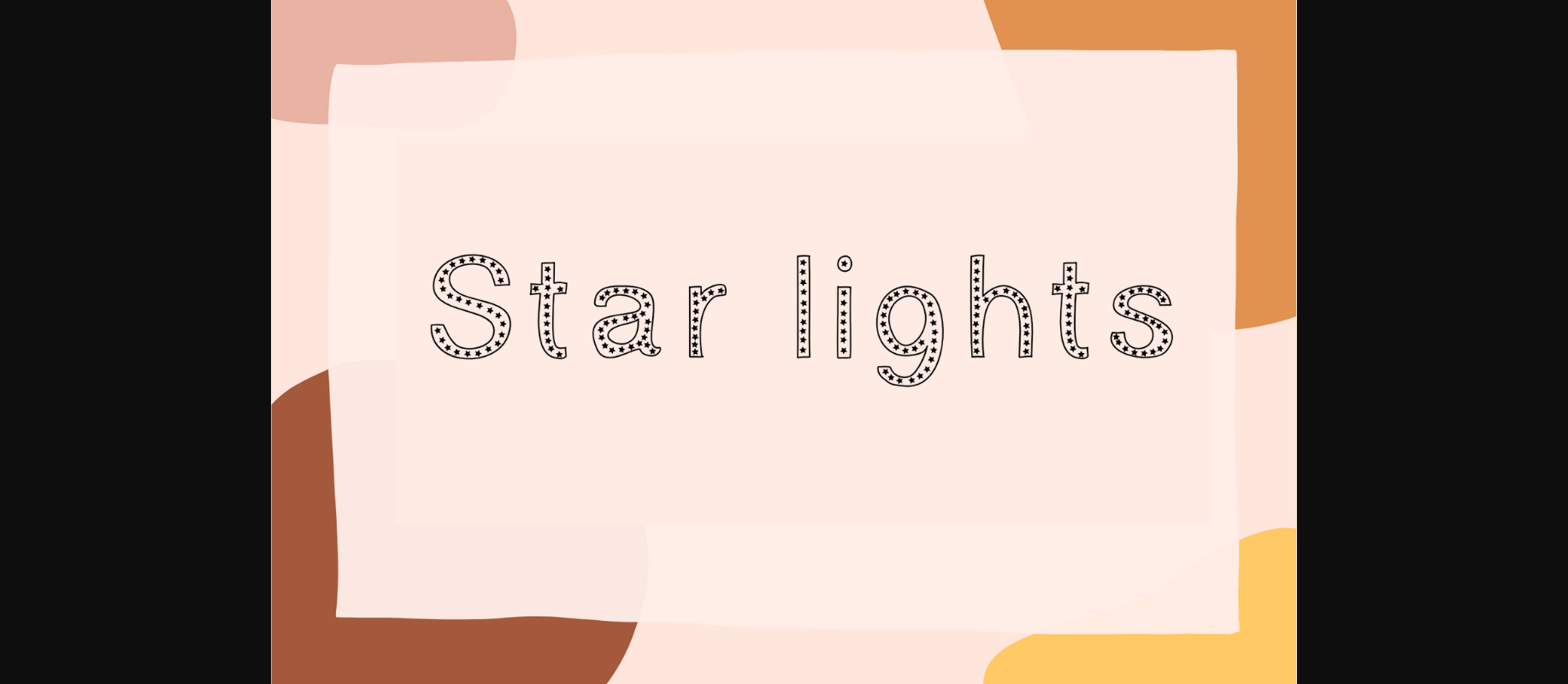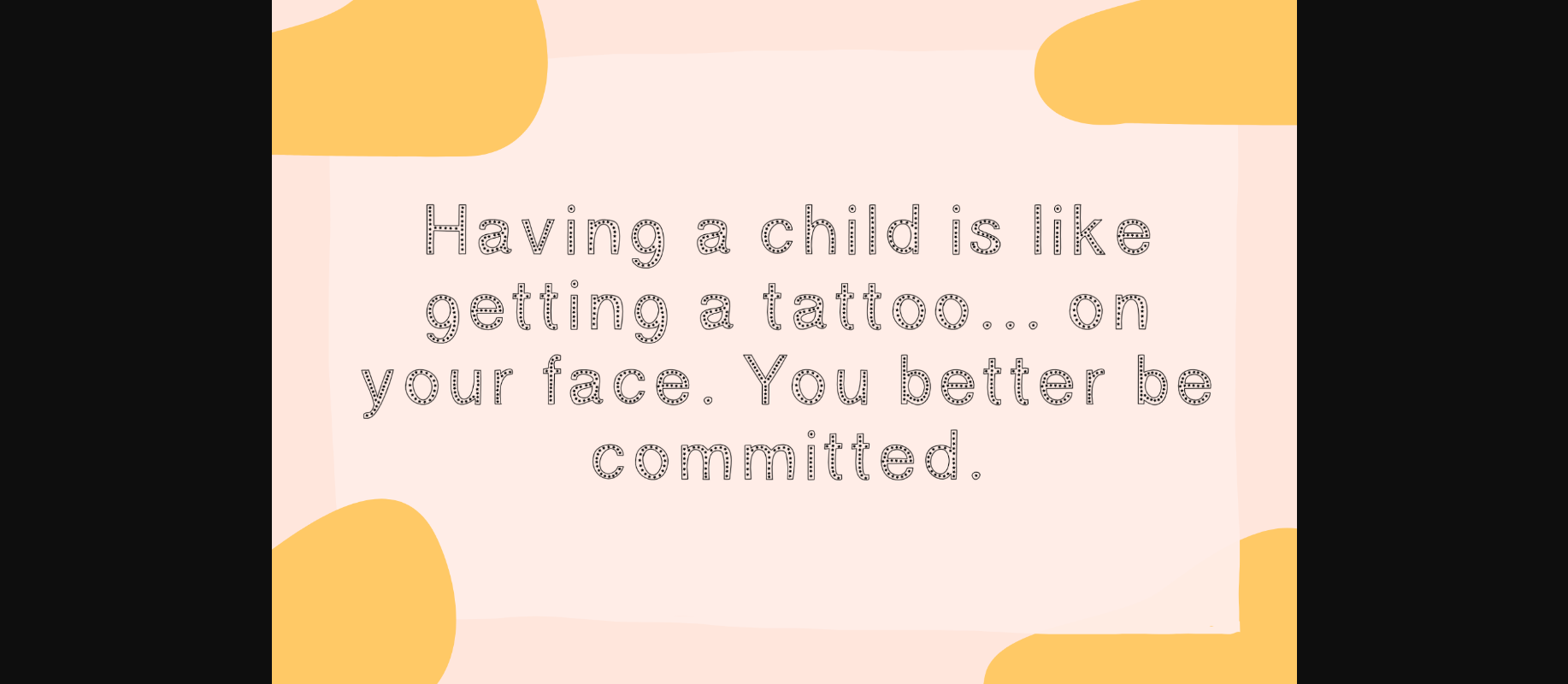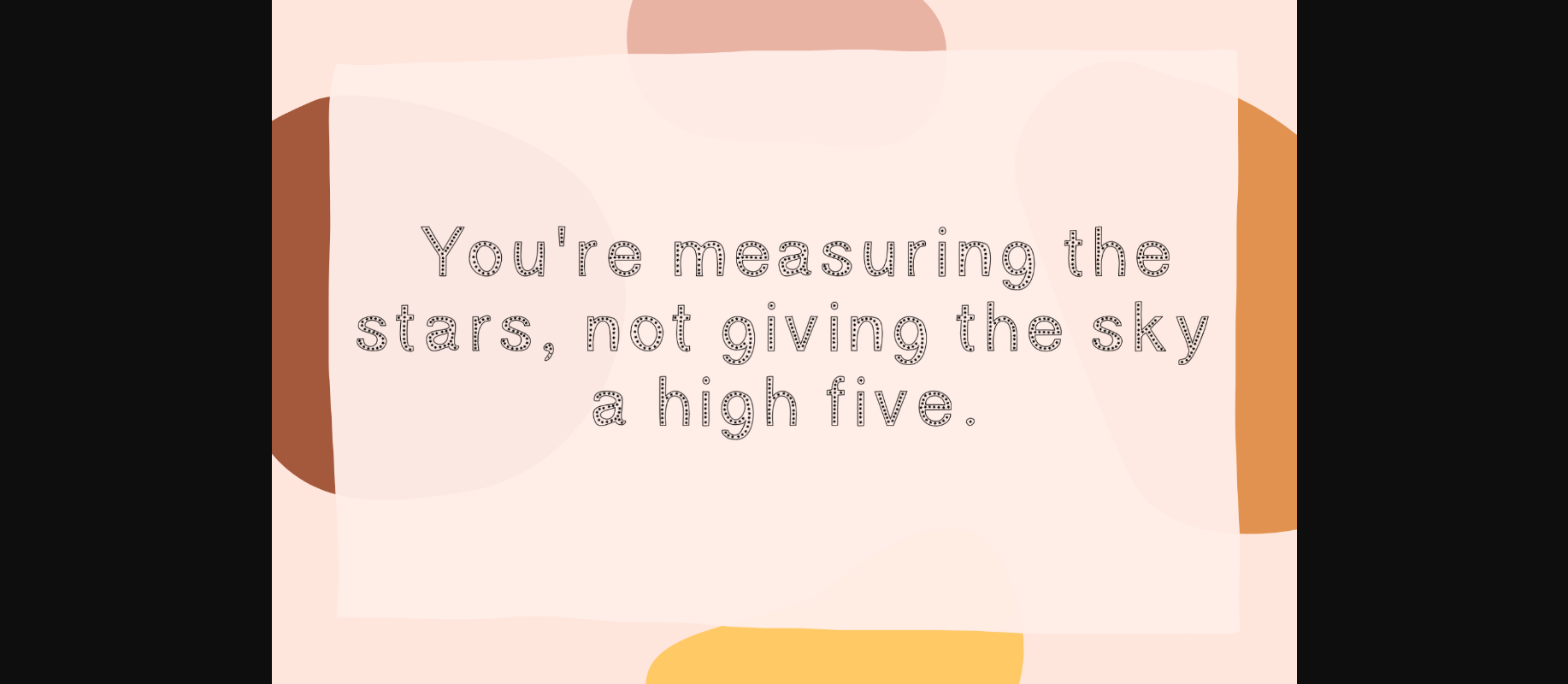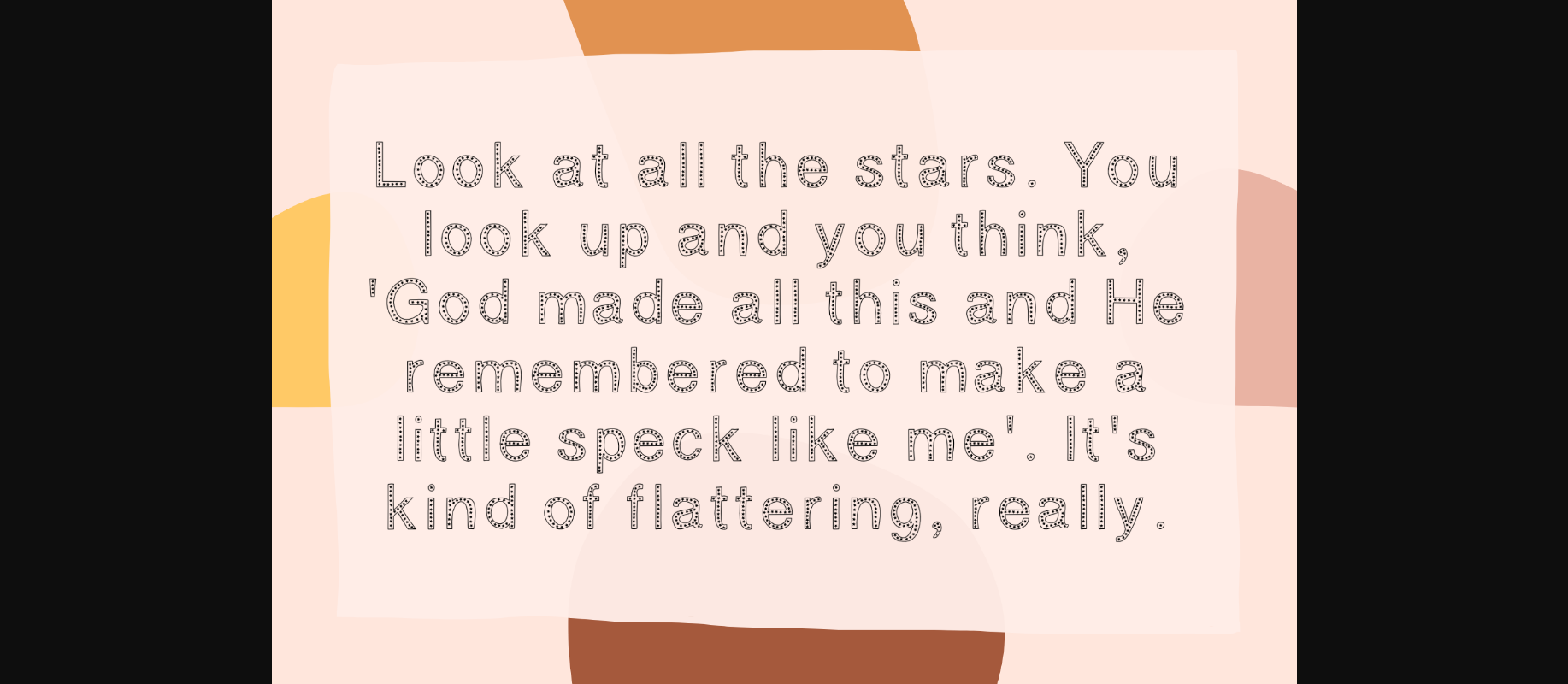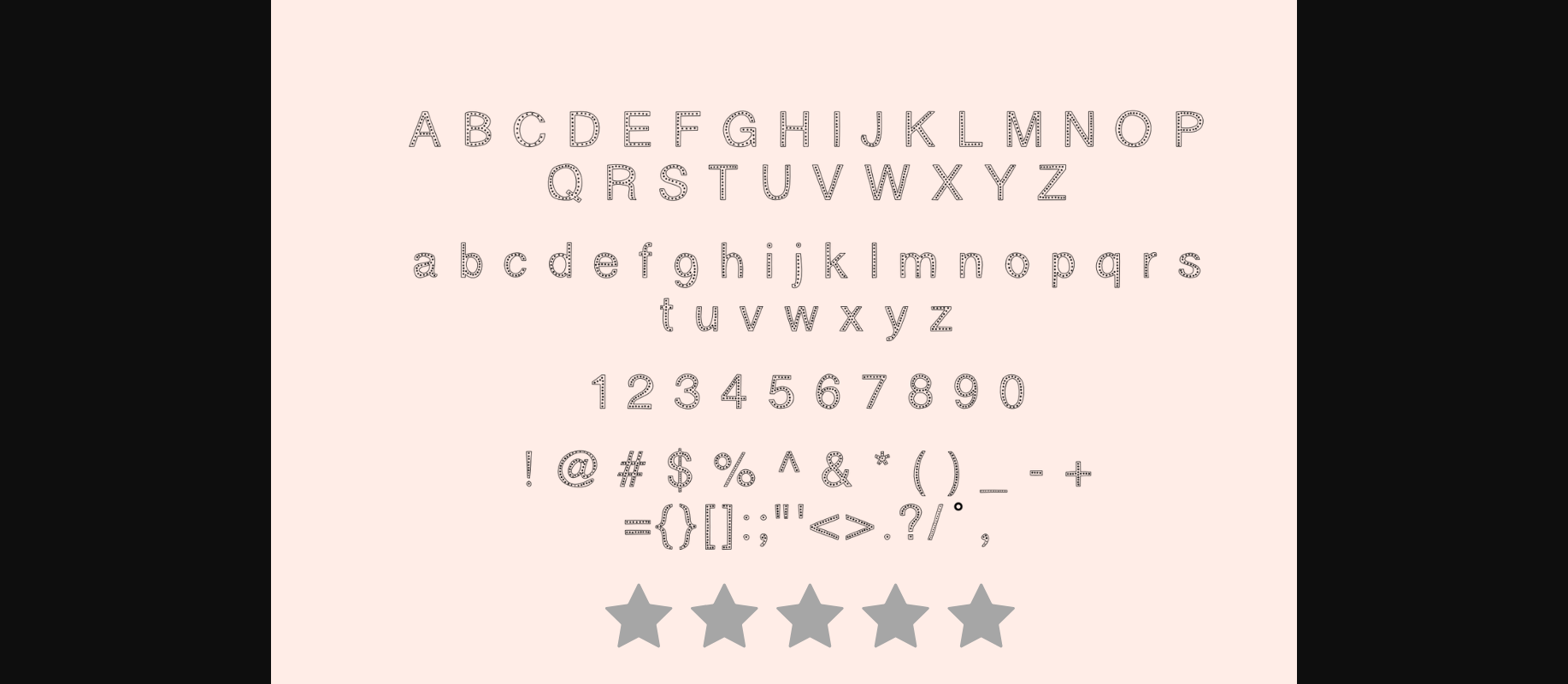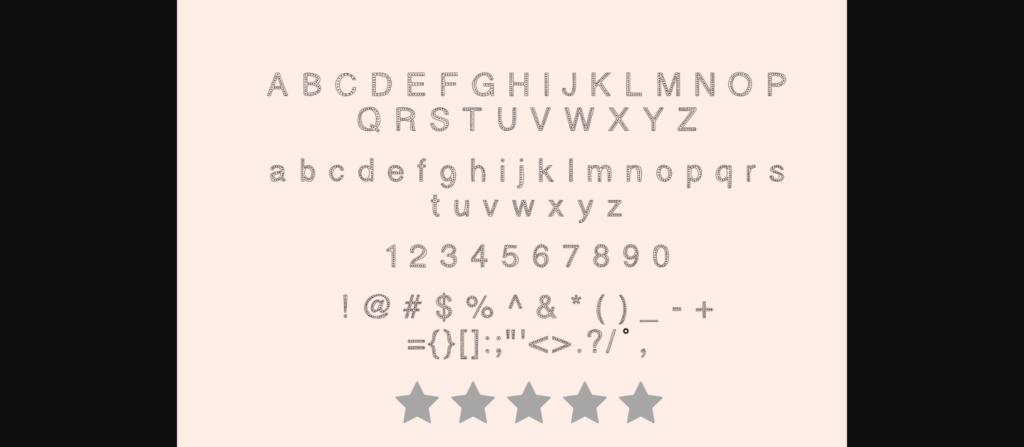
Star Lights Font
About Star Lights Font
Star Lights is a fun and whimsical decorative font. It embodies playfulness and authenticity and is the perfect choice for any children’s activity or school project.